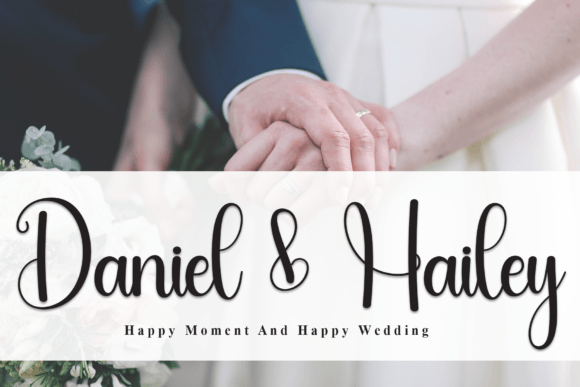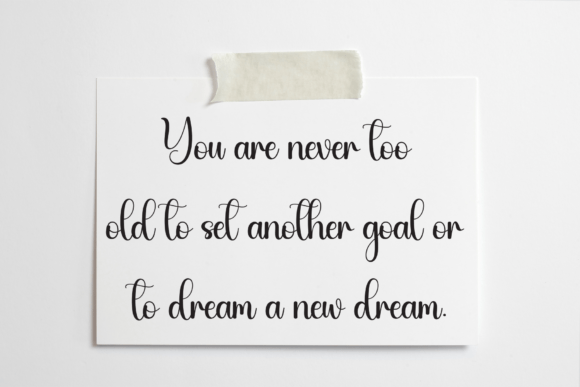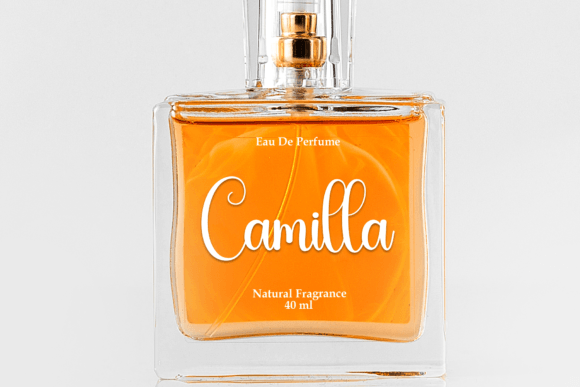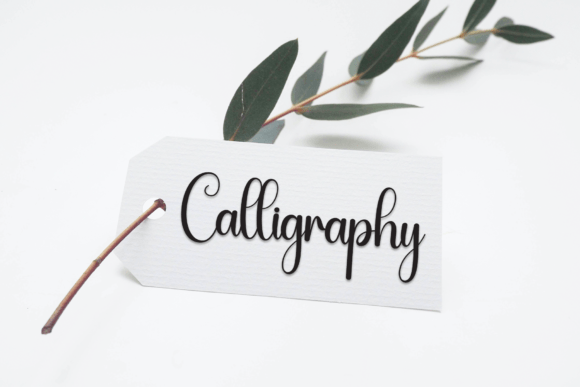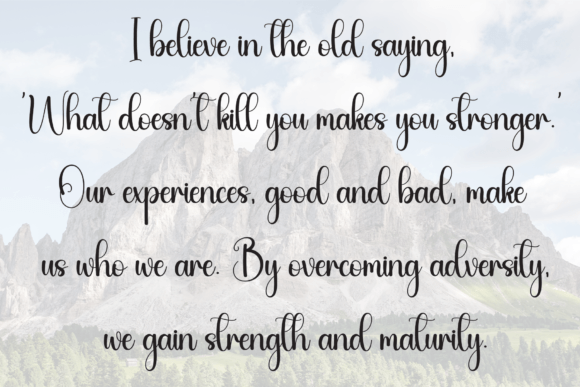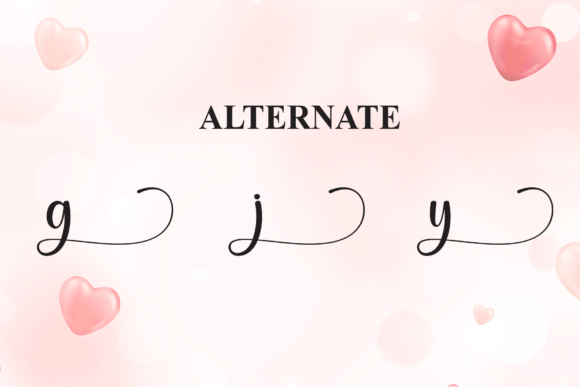
Introduction to Heylove Font
Have you ever stared at a blank canvas, trying to bring a creative idea to life, but struggling to find the perfect font to convey your message? This is where the magic of the Heylove Font comes in – a lovely and timeless handwritten font that can breathe new life into your designs.
With its unique and beautiful touch, the Heylove Font is the perfect choice for creating eye-catching logos, branding, and quotes that leave a lasting impression. Whether you’re working on a high-quality design project or need a reliable design resource, this font is sure to elevate your work to the next level. And the best part? You can download it for free, complete with a transparent background, making it easy to incorporate into your designs.
Key Features of Heylove Font
- High-quality, elegant design suitable for creative projects, making it an excellent design resource.
- Includes a wide range of characters, including uppercase and lowercase letters, numbers, and special characters, making it a versatile design resource.
- Perfect for use in various design applications, including logos, branding, and digital graphics, thanks to its modern and stylish aesthetic.
Honest Review: Heylove Font
I recently had the chance to work with the Heylove Font in a creative project, and I must say, it’s a high-quality addition to any design resource. The clean and modern aesthetic of this font makes it perfect for a variety of design applications.
- ✨ High-quality design with a clean and modern aesthetic
- ⚠️ Limited character set, which may not be ideal for longer text-based projects
Overall, I’m impressed with the Heylove Font and would definitely recommend it to designers looking for a high-quality, free design resource. Its modern aesthetic and versatility make it a great choice for a variety of design applications.
Tips for Getting the Most Out of Heylove Font
Use the Heylove Font with a transparent background to create a beautiful, high-quality design. Experiment with different font sizes and colors to add depth and interest to your project. This free download font is perfect for designers looking for a unique design resource.
The Heylove Font is ideal for creative projects, such as social media graphics, blog posts, and marketing materials. Its high-quality design and transparent background make it a versatile design resource for designers of all levels.
Alternatives to Heylove Font
Great Vibes Font is a high-quality script font perfect for creative projects, such as wedding invitations, greeting cards, and other design elements. It features a transparent background and a elegant feel.
When to use: Great Vibes Font is ideal for projects that require a romantic and sophisticated touch. It is a great alternative to Heylove Font for designs that need a more vintage feel.
Comparison: Great Vibes Font has a more complex and ornate design compared to Heylove Font, making it a better choice for projects that require a more detailed and intricate look.